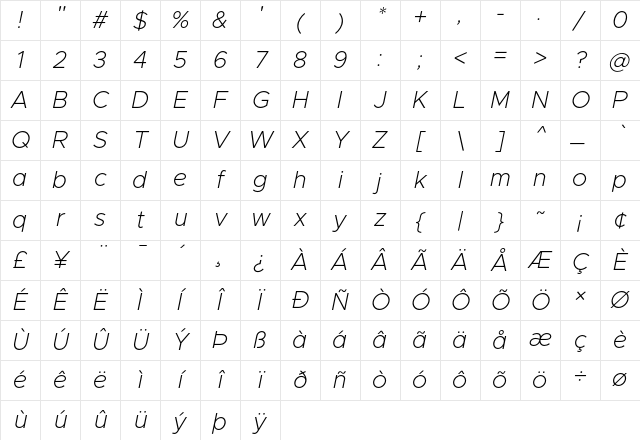
Complete Metropolis Extra Light Italic glyph index. Displaying only characters natively supported by Metropolis Extra Light Italic font.
Metropolis is a composed and adaptable typeface that performs quietly and consistently across a wide range of design contexts. The slanted form adds forward momentum and visual energy. Its slender proportions lend an understated elegance to any composition.
Pro Tip: Use Metropolis for emphasis, pull quotes, and subheadings where its slanted energy can add rhythm to the layout.